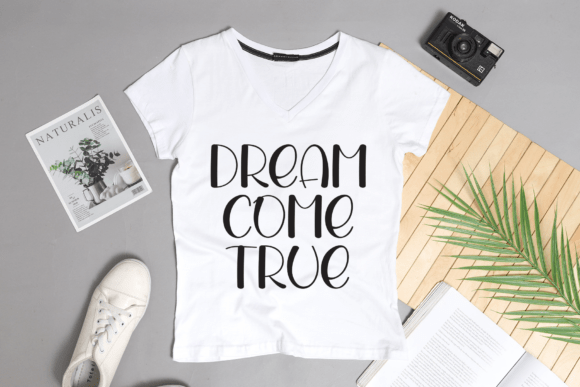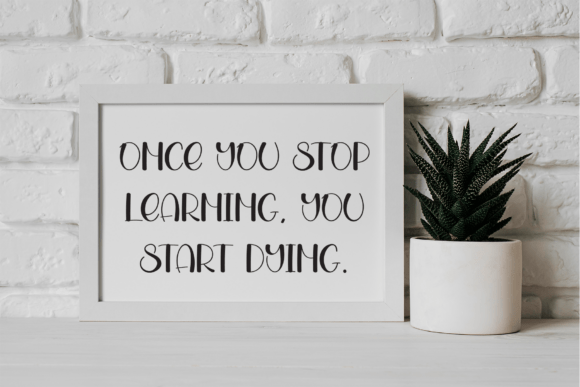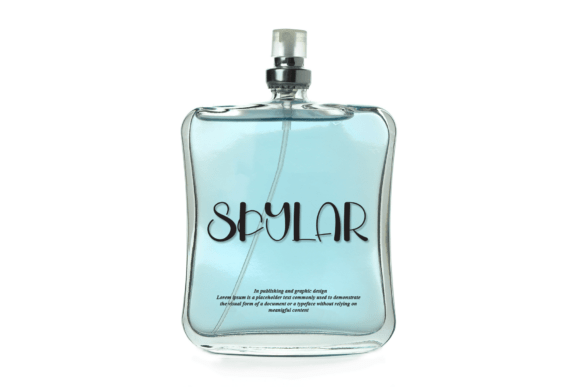
Introduction to Snow Background Font
Have you ever been brainstorming ideas for a creative project, only to be stuck in a sea of bland design options? I know I have. But what if you could add a sprinkle of magic to your design, making it truly unforgettable? That’s exactly what the Snow Background Font offers.
| 👤 Author | Strongkeng Old |
As a valuable resource for designers, this delightful handwritten display font is a game-changer. Its soft charm and playful elegance evoke the spontaneity of heartfelt penmanship, making it perfect for wedding invitations, cards, and any design project yearning for an extra touch of whimsy. With its warmth and friendliness, the Snow Background Font is sure to enchant your audience and leave them wanting more.
Whether you’re looking for a free download or a high-quality design resource, this font is a must-have. With its transparent background and versatile appeal, the Snow Background Font is the perfect addition to any design project.
Key Features of Snow Background Font
- High-quality design resource ideal for creative projects, including presentations, websites, and social media graphics.
- Transparent background for seamless integration with any design element or image.
- Perfect for adding a touch of winter wonderland magic to your design, with a serene and calming atmosphere.
- Easy to customize and edit, making it a versatile design resource for any creative project.
Honest Review: Snow Background Font
I recently stumbled upon the Snow Background Font, and I must say it’s a game-changer for my creative projects. This design resource has been a lifesaver for adding a touch of elegance to my designs.
- High-quality images with a transparent background, making it easy to customize and blend with other design elements.
- The font is incredibly versatile, suitable for a wide range of creative projects, from fashion and beauty to travel and food.
- The font is limited to a single style, which might not be ideal for designers looking for a more extensive range of options.
Overall, I’m impressed with the Snow Background Font’s potential to elevate my designs. While it has its limitations, I believe it’s a valuable addition to any designer’s toolkit. I’d definitely recommend it to fellow designers looking for a high-quality design resource.
Tips for Getting the Most Out of Snow Background Font
Experiment with different font sizes and colors to create a visually appealing design. Use the Snow Background Font as a design resource to add depth and dimension to your project.
The Snow Background Font is perfect for winter-themed designs, holiday cards, and creative projects that require a touch of elegance. Download the font for free and start creating your high-quality design today.